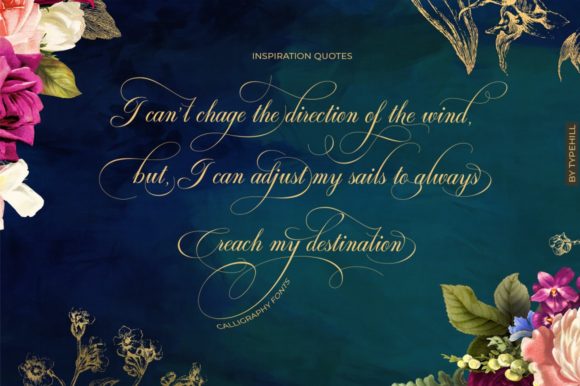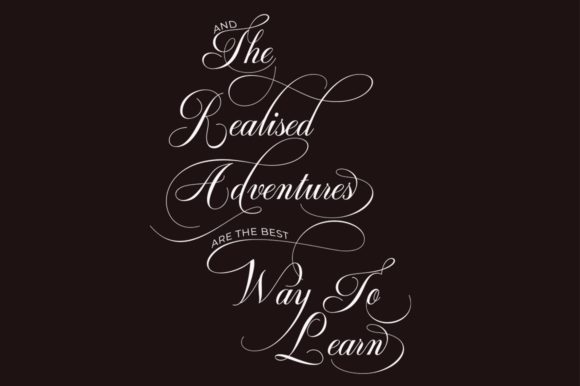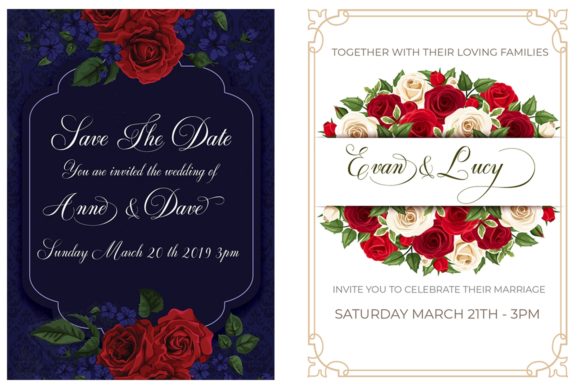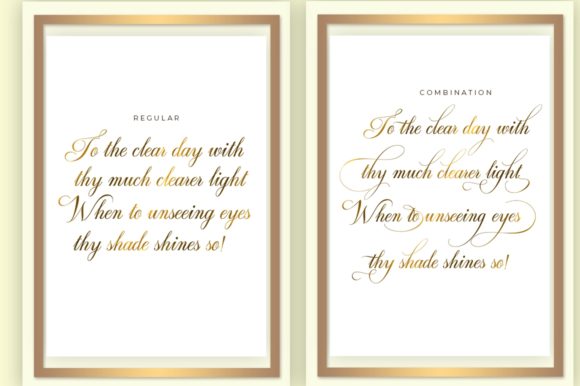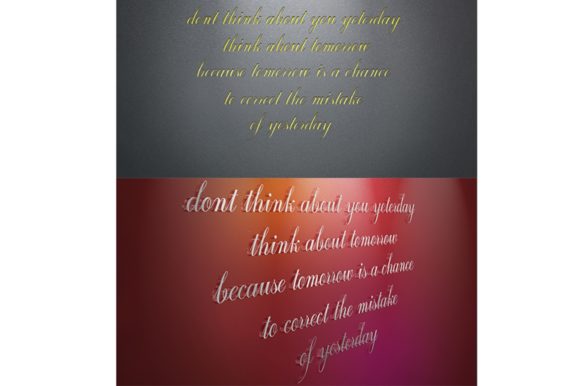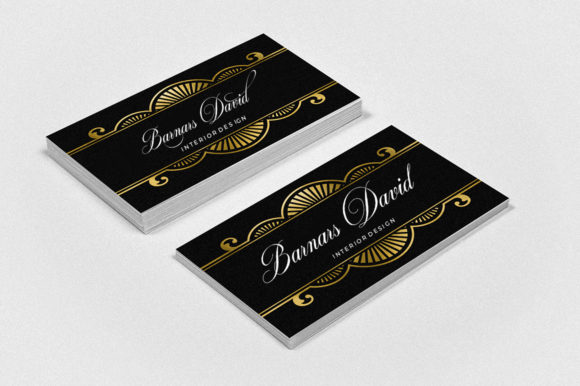
Introducing Graphitel Font: Elevate Your Design Projects with Elegance
Are you a designer or crafter looking for a font that exudes sophistication and personal charm? Look no further than Graphitel Font! This extremely delicate and refined handwritten font is perfect for adding a touch of elegance to any design project. In this article, we’ll dive into the world of Graphitel Font, exploring its features, benefits, and uses.
A Delicate and Sophisticated Handwritten Font
Graphitel Font is a beautiful, handwritten font that boasts a unique and captivating charm. Its delicate strokes and refined lines make it perfect for designs that require a touch of sophistication and elegance. Whether you’re working on a logo, branding project, or craft design, Graphitel Font is sure to elevate your work to the next level.
Features of Graphitel Font
- Delicate and refined strokes: Graphitel Font features delicate and refined strokes that give it a unique and captivating charm.
- Handwritten with love: This font is carefully crafted to resemble handwritten text, adding a personal touch to your designs.
- Extremely versatile: Graphitel Font can be used for a wide range of design projects, from logos and branding to crafts and digital art.
- Easily readable: Despite its delicate nature, Graphitel Font is surprisingly easy to read, making it perfect for body text and headings.
Benefits of Using Graphitel Font
So, why should you choose Graphitel Font for your design projects? Here are just a few benefits of using this beautiful font:
- Adds elegance and sophistication: Graphitel Font instantly elevates your designs, adding a touch of elegance and refinement.
- Personal charm: This font’s handwritten nature gives your designs a personal touch, making them more relatable and engaging.
- Versatility: Graphitel Font can be used for a wide range of design projects, making it a valuable addition to your font library.
Uses of Graphitel Font
So, what can you use Graphitel Font for? The possibilities are endless! Here are a few ideas to get you started:
- Logo design: Graphitel Font is perfect for creating elegant and sophisticated logos that make a lasting impression.
- Branding: Use Graphitel Font to create a cohesive brand identity that exudes refinement and elegance.
- Craft design: Add a touch of elegance to your craft designs, from paper crafts to sewing and embroidery.
- Digital art: Graphitel Font is perfect for digital artists looking to add a touch of sophistication to their work.
Tips for Using Graphitel Font
To get the most out of Graphitel Font, here are a few tips to keep in mind:
- Use it sparingly: Graphitel Font is perfect for headlines and titles, but use it sparingly to avoid overwhelming your design.
- Experiment with colors: Graphitel Font looks beautiful in a range of colors, from soft pastels to rich jewel tones.
- Pair it with bold fonts: Graphitel Font pairs beautifully with bold, chunky fonts – try pairing it with a sans-serif font for a striking contrast.
In conclusion, Graphitel Font is a beautiful, delicate, and sophisticated handwritten font that’s perfect for designers and crafters looking to add a touch of elegance to their work. With its refined strokes, personal charm, and versatility, Graphitel Font is sure to elevate any design project. Whether you’re working on a logo, branding project, or craft design, Graphitel Font is a valuable addition to your font library.